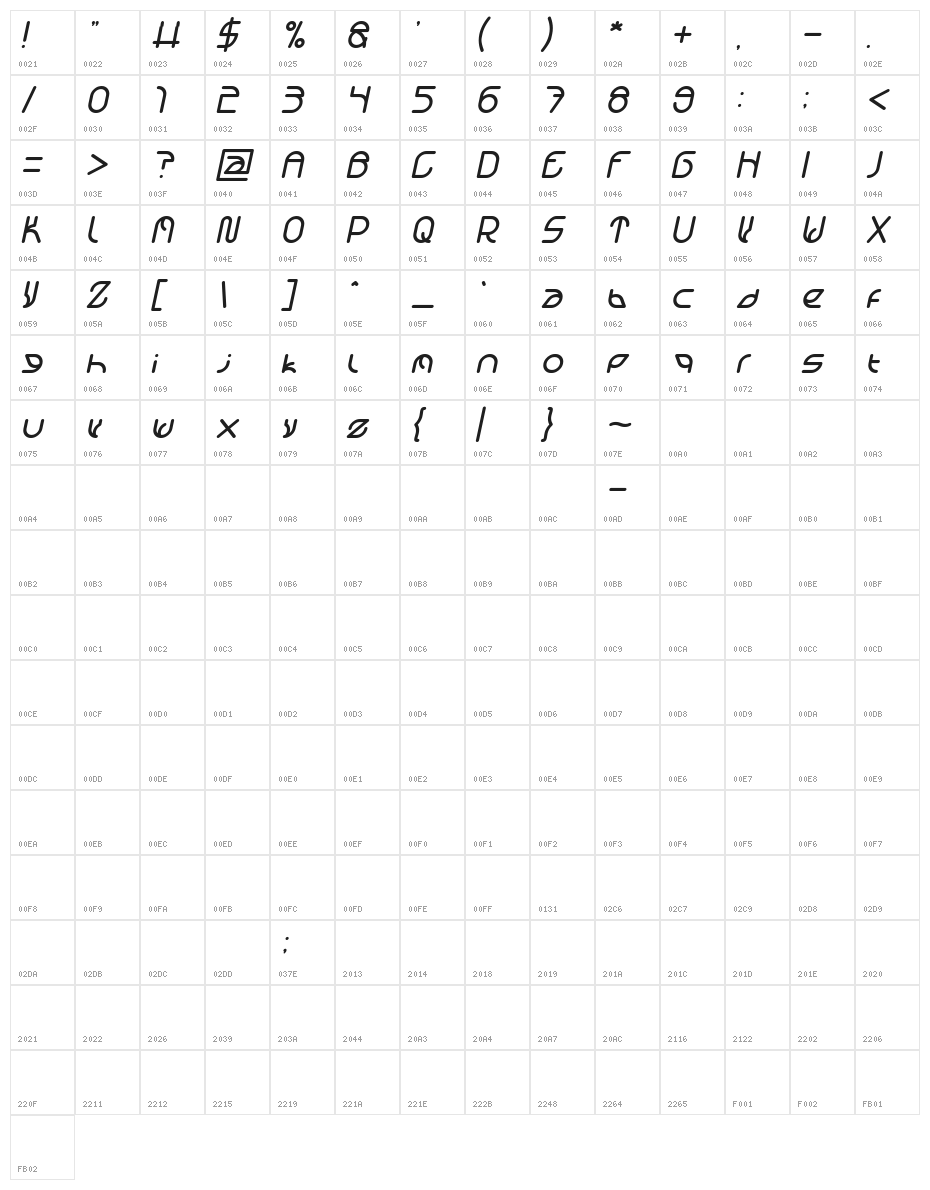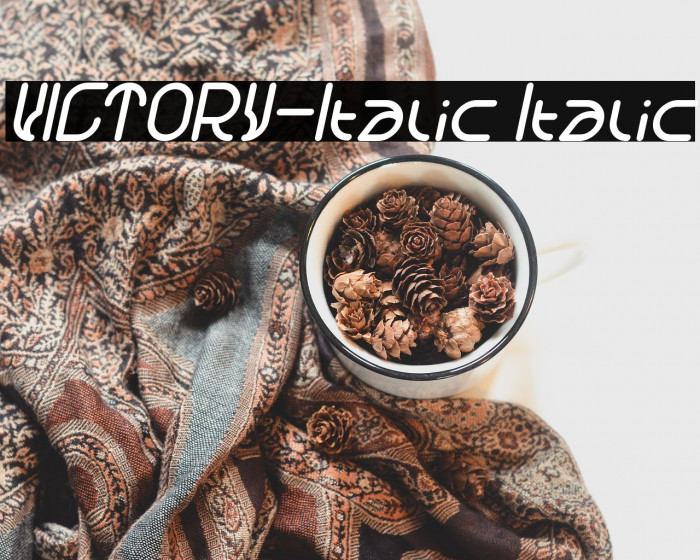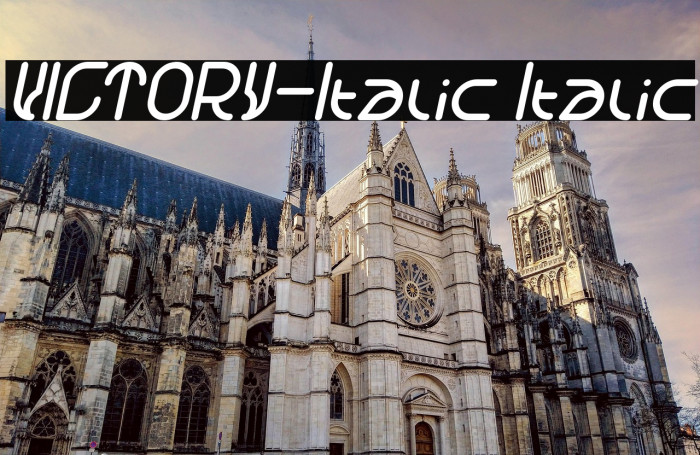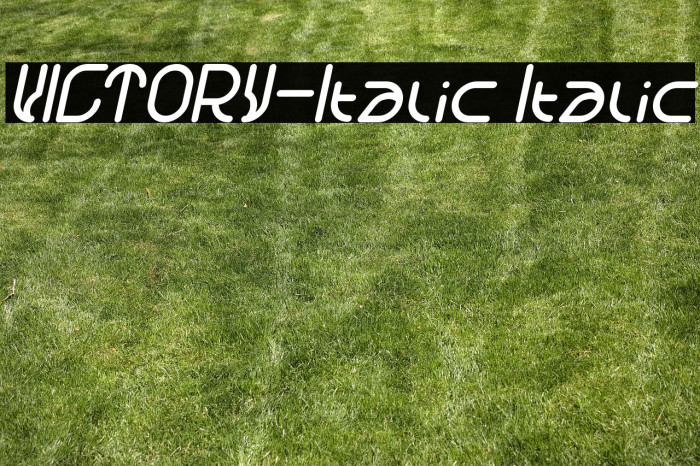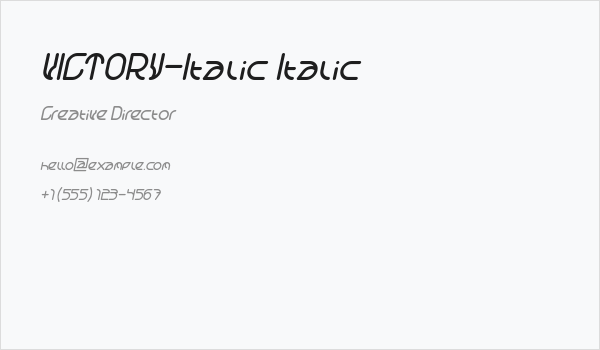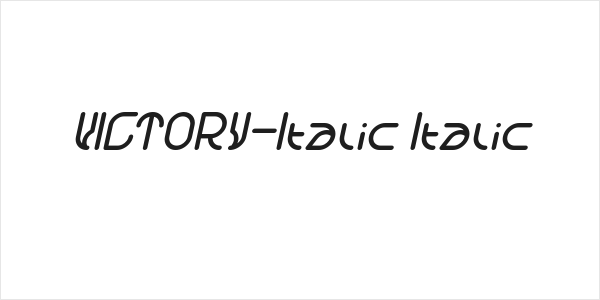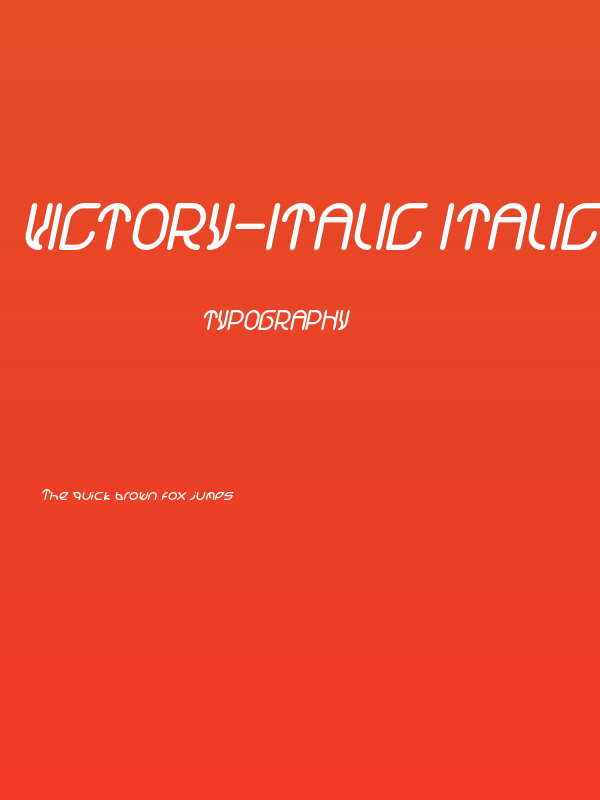
VICTORY-Italic Italic Font
VICTORY-Italic Italic Description
This font features a sleek, modern design with a distinct italic slant, giving it a dynamic and forward-moving appearance. The characters are rounded and smooth, with a consistent stroke width that maintains a clean and uniform look. The uppercase and lowercase letters are well-proportioned, and the numerals are clear and easy to read. Special characters are included, maintaining the same stylistic approach. The overall aesthetic is contemporary and slightly futuristic, making it suitable for projects that require a modern touch.
| Use Case | Headlines, Logos, Digital Media |
| Proposed Projects | Ideal for branding, advertising, and digital media projects that require a modern and dynamic look. |